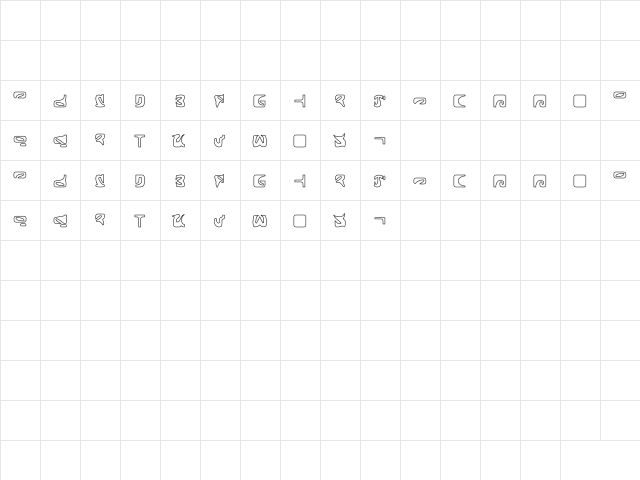
Romulus Hollow Plain
Design Context for Romulus Hollow Typeface
Romulus Hollow is a composed and adaptable typeface that performs quietly and consistently across a wide range of design contexts.